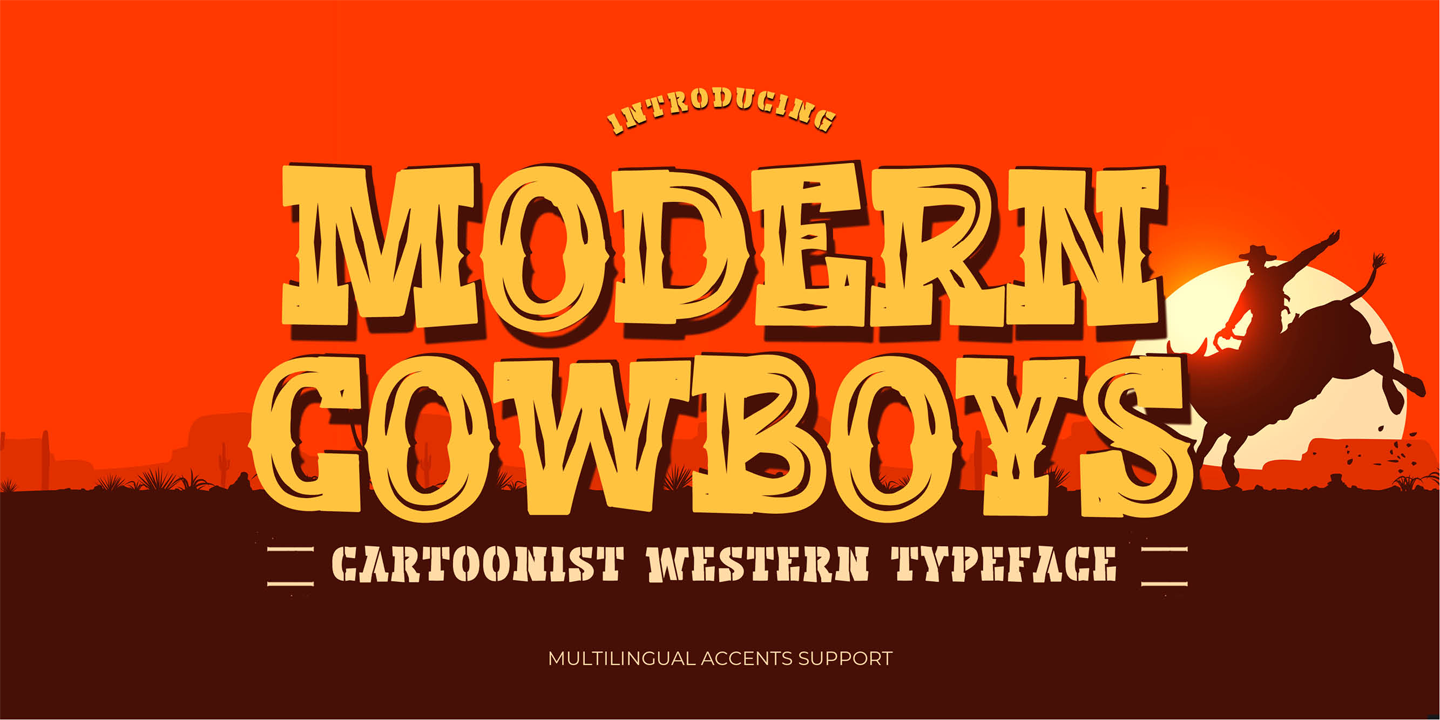
The Modern Cowboys Font is perfect for Western-themed restaurant branding, rodeo event posters, country music venue signage, ranch tourism marketing, cowboy boot store logos, Western wear boutique graphics, BBQ restaurant menus, saloon bar branding, and American frontier tourism materials.
What makes the Modern Cowboys Font so exciting is its contemporary Western spirit that perfectly blends traditional cowboy heritage with modern design sensibilities. This dynamic typeface embodies the independent freedom and rugged determination that defines the American cowboy legacy while incorporating sleek contemporary elements that appeal to today's audiences. The font's Western character communicates the authentic frontier values and adventurous spirit that Western-themed businesses need to attract customers who appreciate both classic cowboy culture and modern lifestyle sophistication.
The Modern Cowboys Font family includes Regular weight featuring complete uppercase and lowercase character sets, comprehensive numerical collections, essential punctuation marks, and Western symbols that maintain the cowboy aesthetic throughout your frontier-themed and Western lifestyle design projects.
Western businesses and country entertainment venues consistently choose Modern Cowboys Font Free Download for projects that require authentic cowboy appeal and contemporary Western communication. This exceptional typeface excels in environments where establishing connection to American frontier traditions while maintaining modern relevance is crucial for attracting diverse audiences who appreciate Western heritage. The font's cowboy character helps communicate the independence and authenticity that Western lifestyle enthusiasts expect from genuine frontier-inspired businesses and entertainment venues.
The distinctive qualities of Modern Cowboys Font reflect the enduring traditions of American cowboy culture where self-reliance, honest work, and frontier spirit formed the foundation of Western civilization. Each character demonstrates the straightforward integrity and independent strength that characterized the cowboy way of life and frontier communities. The font's proportions and spacing create perfect balance between Western authenticity and contemporary appeal that modern Western businesses require for effective customer engagement and cultural connection.
Contemporary Western enterprises appreciate how Modern Cowboys Font communicates frontier authenticity and American independence. Whether designing materials for Western-themed restaurants, creating branding for country music venues, or developing marketing for ranch tourism experiences, this font delivers the genuine character that distinguishes authentic Western establishments from generic imitations. The typeface works exceptionally well for businesses emphasizing traditional values, American heritage, and the timeless appeal of cowboy culture and frontier lifestyle.
The versatility of Modern Cowboys Font extends across multiple Western applications and frontier tourism initiatives. Country music festivals utilize its authentic character for promotional materials and artist merchandise. Western clothing retailers choose it to communicate their commitment to genuine cowboy fashion and frontier style. Dude ranches rely on its appealing appearance to market authentic Western experiences and cowboy lifestyle adventures to urban visitors.
Digital Western platforms benefit from Modern Cowboys Font's optimized performance across various cowboy-themed applications and Western communication channels. The font maintains its frontier character whether displayed on Western websites, mobile rodeo apps, or digital country music platforms. This technical reliability ensures consistent brand presentation across all Western communication platforms and cowboy culture engagement scenarios.
The emotional appeal of Modern Cowboys Font resonates with audiences who value American independence and appreciate the romantic appeal of cowboy culture and frontier heritage. The typeface serves as a visual celebration of Western values and frontier spirit that helps Western businesses build passionate relationships with customers who seek authentic American experiences and cowboy lifestyle connections. This association with freedom and frontier adventure makes it invaluable for establishing memorable Western brand identities.
Western marketing specialists and frontier design professionals recognize Modern Cowboys Font as an essential tool for authentic cowboy branding. The font captures the essence of Western heritage while making frontier culture accessible to contemporary businesses who want to communicate their connection to American cowboy traditions and frontier values in today's diverse entertainment and lifestyle marketplace.